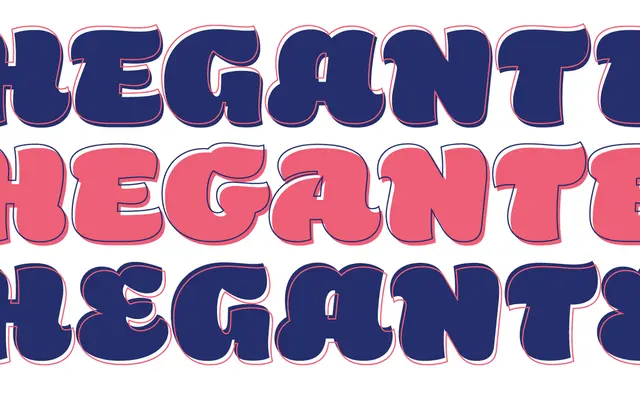
A bold, lively display sans from PS Type Lab, grown from a single Black weight into a six-weight variable family with swash and stylistic alternates.
Originally released as a single Black weight, Hegante has expanded into Hegante Display, a six-weight family spanning Regular to Black with a variable font version covering the full range. Stylistic sets offer alternate letterforms including single-storey a and g, flip-top variants and swash capitals, giving designers considerable expressive flexibility. Latin Extended coverage supports a broad range of European languages, and the family is available via Adobe Fonts.
A bold, expressive sans-serif designed explicitly for display use, with lively letterforms, extensive stylistic alternates and a variable font version branded as Hegante Display. Its character and optical intent place it firmly in the display category.